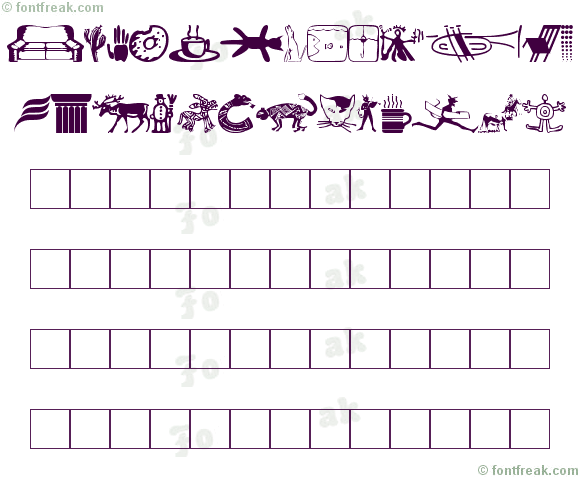
Lunchbox Dingbats, crafted by Home Grown Studios, is a delightful collection of decorative dingbats that infuses a playful spirit into any project. This shareware font is designed with a unique blend of whimsy and creativity, making it a perfect choice for various applications. The visual characteristics of the Lunchbox Dingbats font showcase a charming style with consistent stroke weights, ensuring clarity while maintaining a fun aesthetic. Each character is thoughtfully designed with a light-hearted flair, featuring cheerful motifs and playful shapes that resonate with themes of food, fun, and creativity.
This font shines in specific use cases where a touch of joy is needed. It is ideal for children's party invitations, where festive illustrations can enhance the celebratory atmosphere. Restaurant menus can benefit from its whimsical icons, adding visual interest and a friendly vibe to the dining experience. Additionally, Lunchbox Dingbats can be used in social media graphics, particularly for food blogs and culinary content, where charming visuals can engage viewers. Graphic designers and small business owners will find this font an invaluable tool for creating eye-catching promotional materials that stand out in a crowded marketplace.
Targeted at graphic designers, small business owners, and content creators, the Lunchbox Dingbats font free download provides an accessible option for those looking to elevate their designs with unique and engaging elements. The whimsical nature of this font not only captures attention but also evokes a sense of nostalgia and warmth, making it memorable for audiences. Ultimately, Lunchbox Dingbats stands out as a versatile and inviting choice, perfect for anyone looking to add a sprinkle of creativity to their projects.